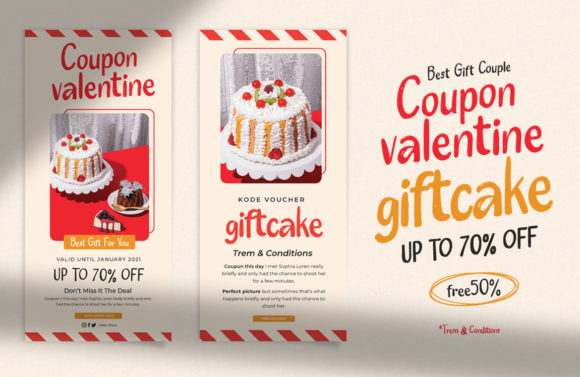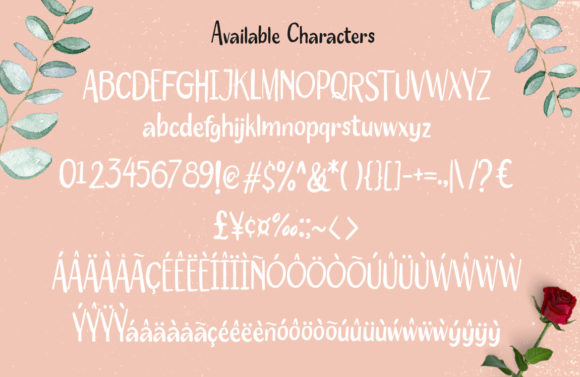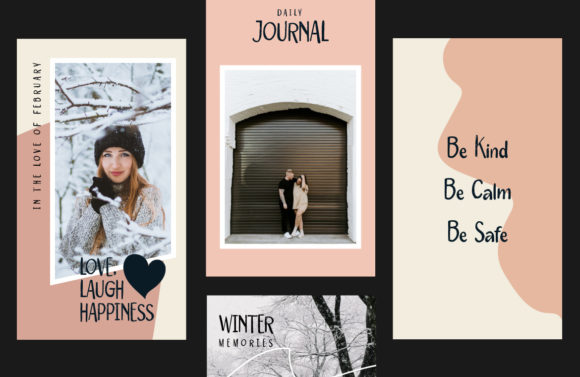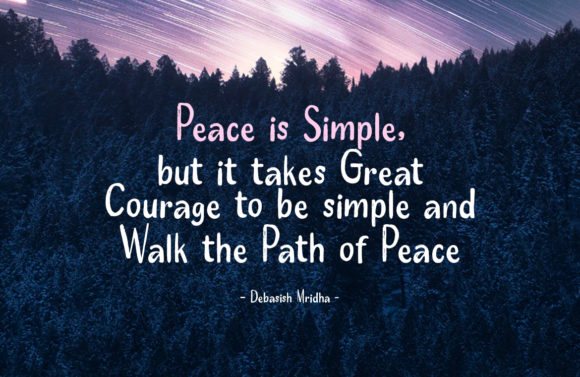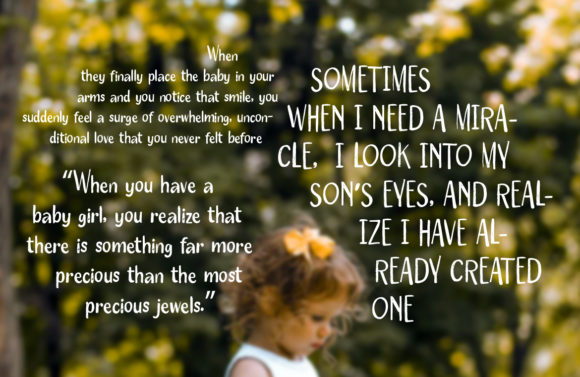
Introduction to Pictum Font
Pictum is a unique and interesting display font.
A little bit quirky, this font is a great choice for a wide variety of contexts .
Key Features of Pictum Font